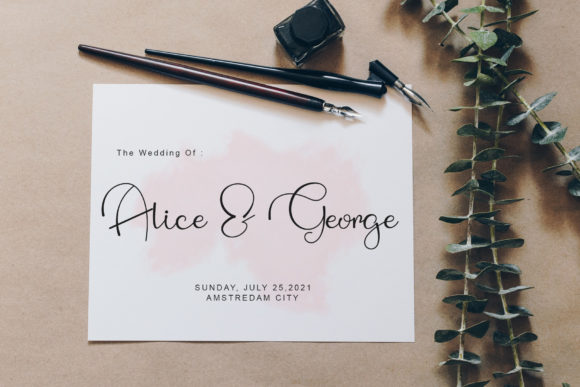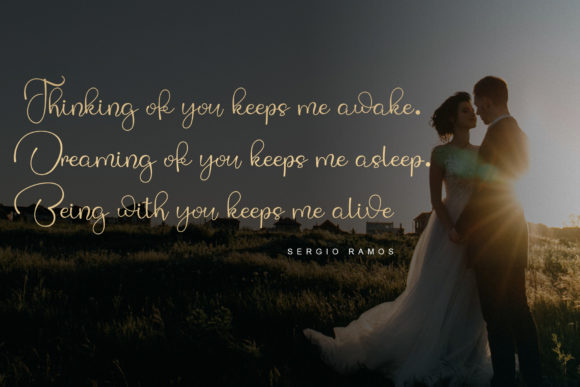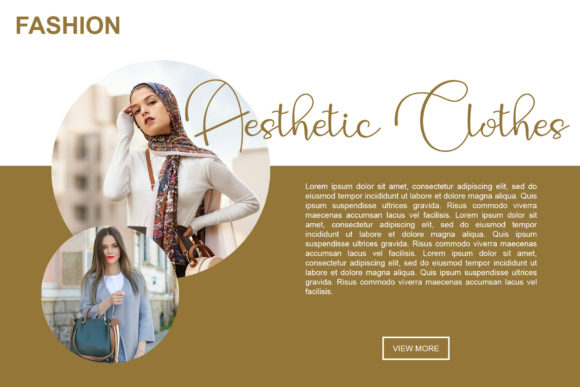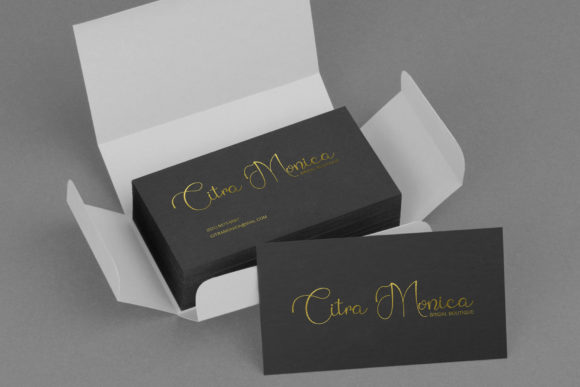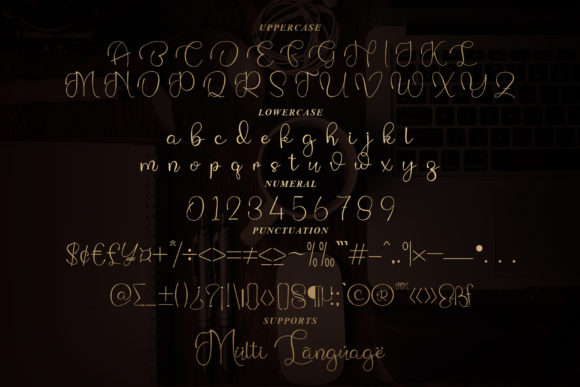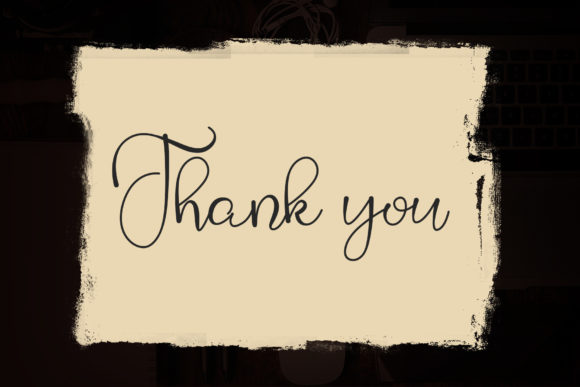
Bework Font: Elevate Your Design with a Touch of Luxury
In the world of typography, fonts play a crucial role in conveying the tone and personality of a design project. Among the numerous fonts available, Bework Font stands out for its unique feel and stunning impact. This beautiful and light handwritten font is designed to add a luxury spark to any design project, making it a perfect choice for designers and crafters seeking to create something extraordinary.
What Makes Bework Font Special?
Bework Font boasts a distinctive, handwritten style that exudes elegance and sophistication. Its light and airy feel makes it an excellent choice for designs that require a touch of refinement and luxury. The font’s unique characteristics include:
- Handwritten style: Bework Font features a beautiful, handwritten script that adds a personal touch to any design project.
- Light and airy feel: The font’s light weight makes it perfect for designs that require a subtle yet impactful typography.
- Unique feel: Bework Font’s distinctive style sets it apart from other fonts, making it an excellent choice for designers seeking to create something unique.
- Stunning impact: The font’s elegant and sophisticated design makes it perfect for creating stunning visual effects.
How to Use Bework Font in Your Design Projects
Bework Font is versatile and can be used in a variety of design projects, including:
- Logos and branding: The font’s elegant and sophisticated design makes it perfect for creating luxury logos and branding materials.
- Posters and flyers: Bework Font’s unique feel and stunning impact make it an excellent choice for creating eye-catching posters and flyers.
- Web design: The font’s light and airy feel makes it perfect for web design projects, including website headers, titles, and descriptions.
- Stationery and packaging: Bework Font’s elegant design makes it an excellent choice for creating luxury stationery and packaging materials.
Benefits of Using Bework Font
Using Bework Font in your design projects offers several benefits, including:
- Instant luxury feel: The font’s elegant and sophisticated design instantly adds a luxury feel to any design project.
- Unique and creative: Bework Font’s distinctive style makes it an excellent choice for designers seeking to create something unique and creative.
- High readability: The font’s light and airy feel makes it easy to read, even in small sizes.
- Multi-purpose: Bework Font can be used in a variety of design projects, making it a versatile addition to any designer’s toolkit.
Tips for Getting the Most Out of Bework Font
To get the most out of Bework Font, consider the following tips:
- Pair it with contrasting fonts: Pair Bework Font with contrasting fonts to create visual interest and add depth to your design.
- Use it sparingly: Use Bework Font sparingly to create emphasis and add luxury feel to your design.
- Experiment with colors: Experiment with different colors to find the perfect combination that complements Bework Font.
- Pay attention to spacing: Pay attention to spacing and kerning to ensure that Bework Font looks elegant and sophisticated.
In conclusion, Bework Font is a beautiful and light handwritten font that adds a luxury spark to any design project. Its unique feel and stunning impact make it an excellent choice for designers and crafters seeking to create something extraordinary. With its versatility, readability, and multi-purpose design, Bework Font is a valuable addition to any designer’s toolkit.